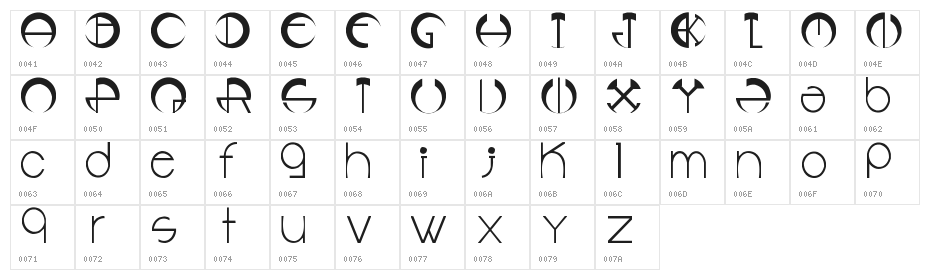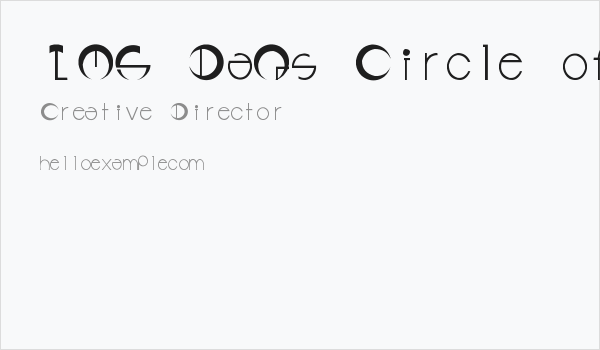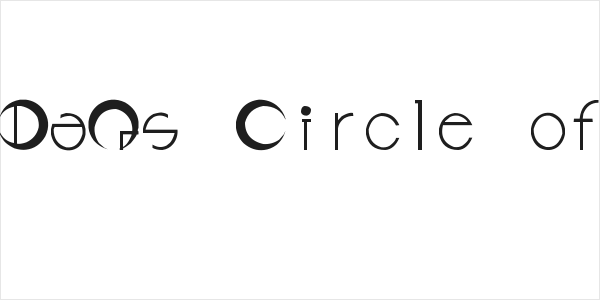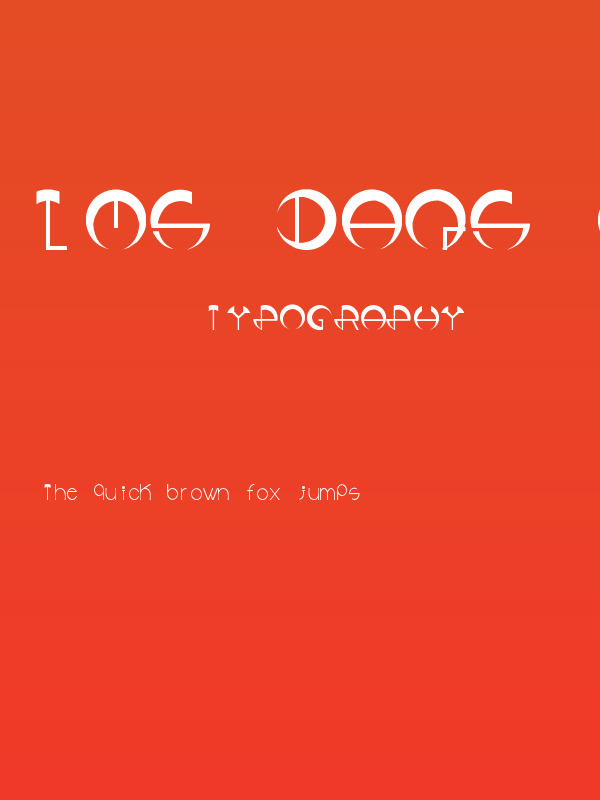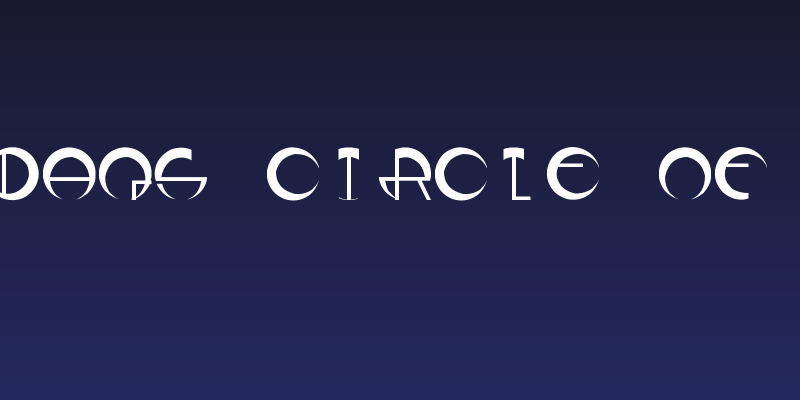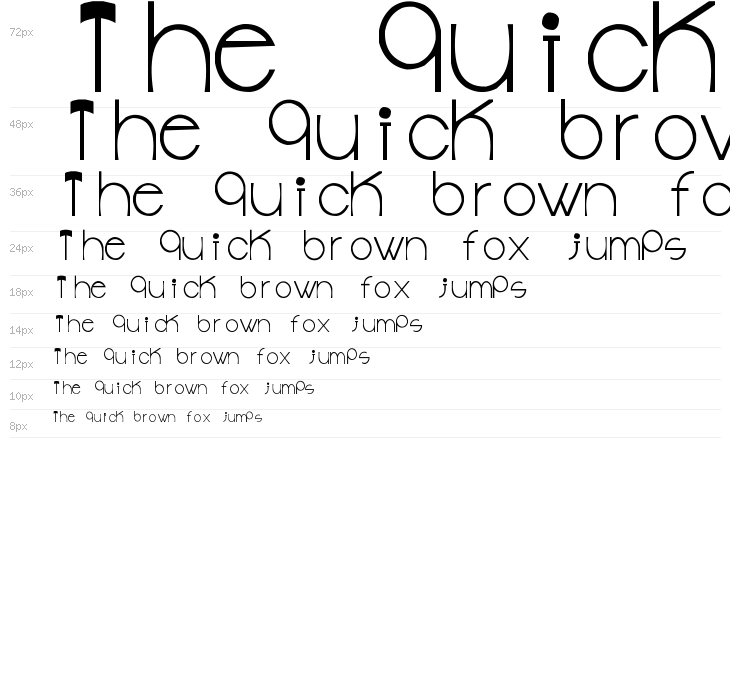
LMS DaQ's Circle of Love Font
LMS DaQ's Circle of Love Description
This font features a unique and artistic design with a circular motif integrated into each character. The letters are constructed with a combination of thick and thin strokes, creating a dynamic visual contrast. The uppercase and lowercase letters maintain a consistent style, with some characters exhibiting mirrored or rotational symmetry. The numbers and special characters follow the same design principles, ensuring uniformity across the font. This font's distinct geometric style makes it stand out, offering a modern and creative aesthetic.
| Use Case | Logos, Posters, Branding |
| Proposed Projects | Ideal for creative projects such as logos, posters, and branding materials that require a modern and artistic touch. |